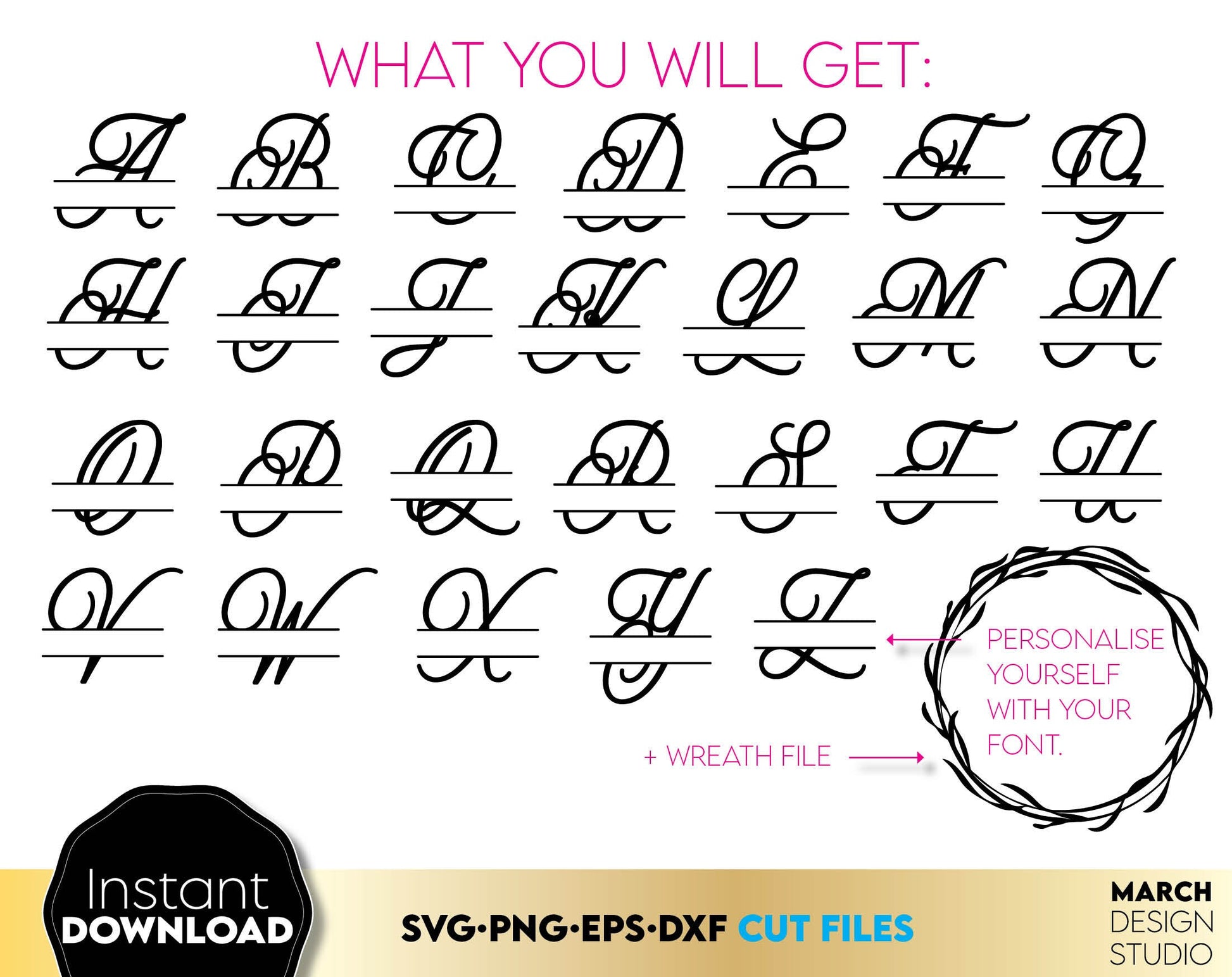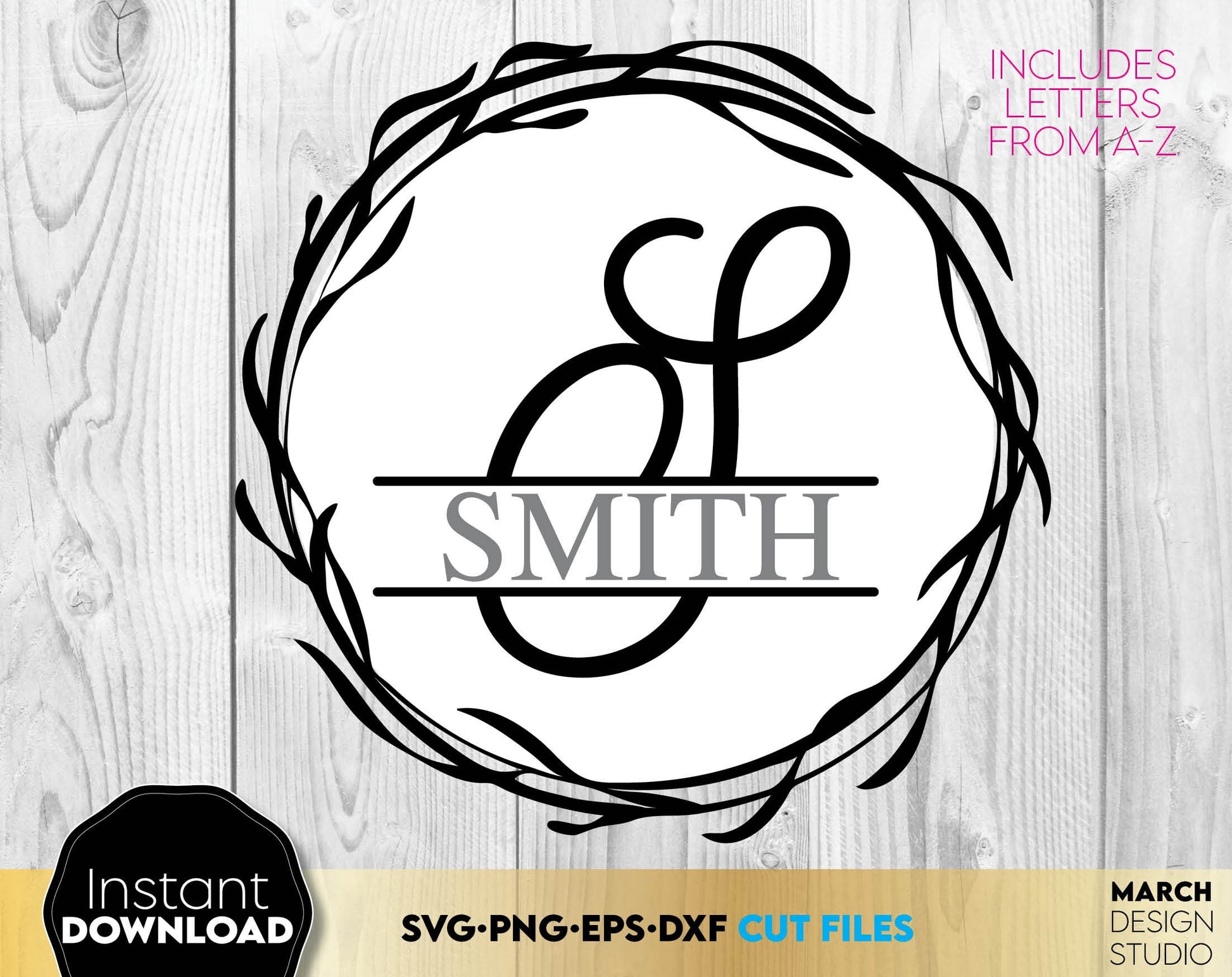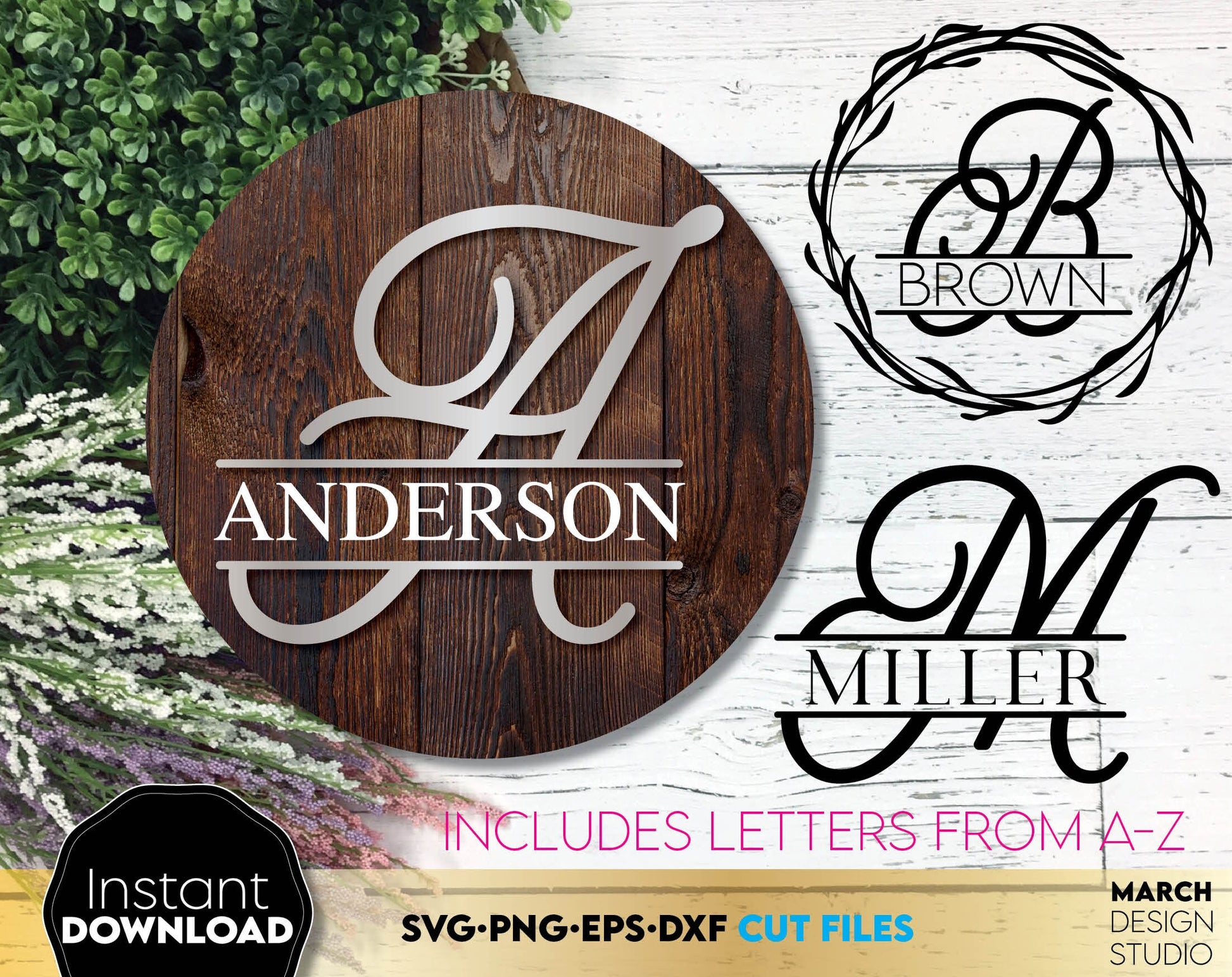
Split Monogram fonts design You can use to surprise your loved ones. Circle monogram files can use to make gifts for various important events, like - wedding, christmas, Birthdays, etc. Use with Cricut, Silhouette, Glowforge, or other equipment. Files allow you to use designs for engraving on glass, making shirts, tumblers, pillows, cups etc.. Monogram files also designed and easy to use for laser cutting.